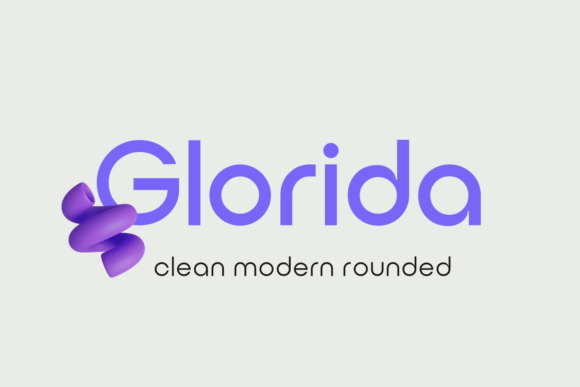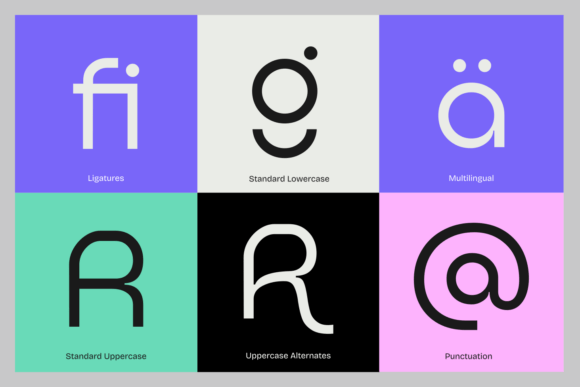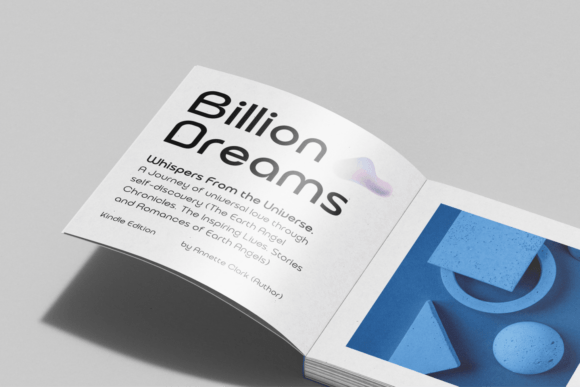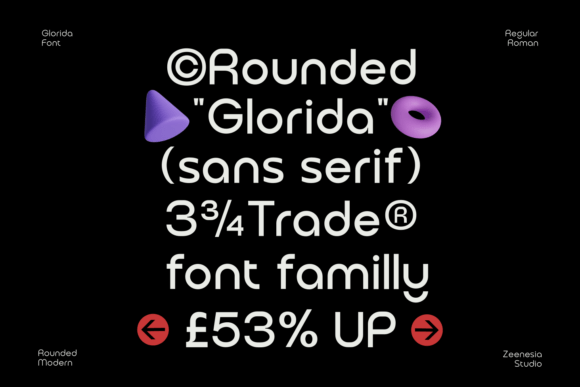
Glorida Font: A Clean & Modern Sans Serif for Logo Design
About the Glorida Font
Add a touch of class to your work with the Glorida Font, a truly exceptional typeface. Introducing Glorida, a beautifully flexible typeface, expertly designed to bring a touch of elegance and warmth to your creative projects. This proficiently rounded marvel is your complete typographical magic, specifically designed to fulfill a range of creative needs, letting your work glisten with polished refinement. Glorida radiates a graceful allure that seamlessly integrates a feeling of warmth into any design, offering a both functional and fashionable solution.
Glorida’s elegant yet approachable personality makes it ideal for headlines, logos, and short-form text in branding materials, invitations, and packaging design where its refined curves shine. It also works well for posters and short marketing copy requiring a touch of sophistication. However, its rounded forms and relatively high x-height make it less suitable for lengthy body text or UI elements where readability is paramount.
Pairing Glorida effectively depends on the desired effect. For a classic, balanced feel, consider pairing it with a neutral sans-serif like Lato or a clean serif like Garamond. To emphasize its elegance, a delicate script font like Great Vibes could be used for accents. For a more modern feel, a geometric sans-serif such as Futura would create a striking contrast.
In short, Glorida embodies a sophisticated yet friendly aesthetic. Its warmth and refined elegance make it a versatile choice for projects needing a touch of class without sacrificing approachability.
Glorida Font Usage Examples